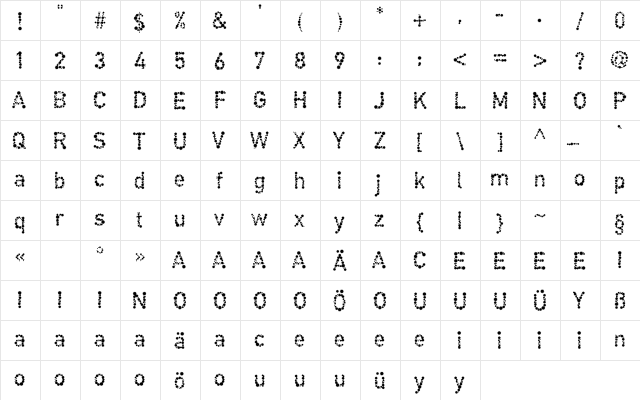
Coronaviral Regular
Design Context for Coronaviral Typeface
Coronaviral is a composed and adaptable typeface that performs quietly and consistently across a wide range of design contexts.